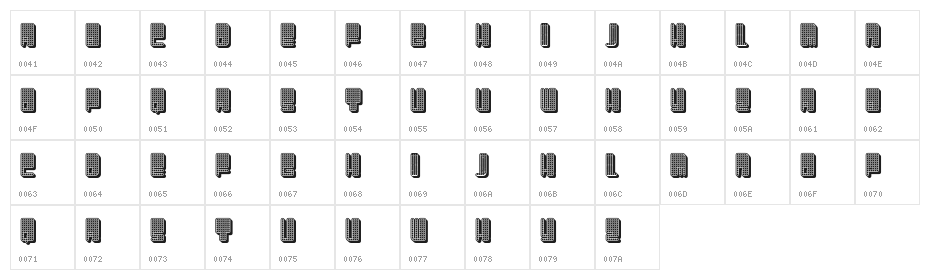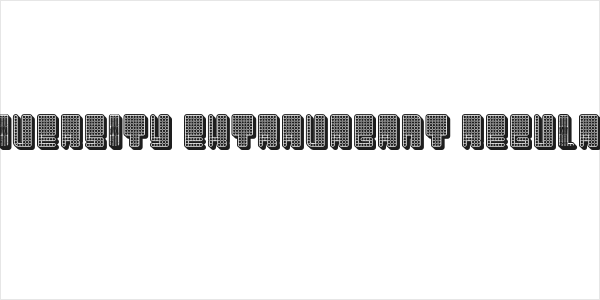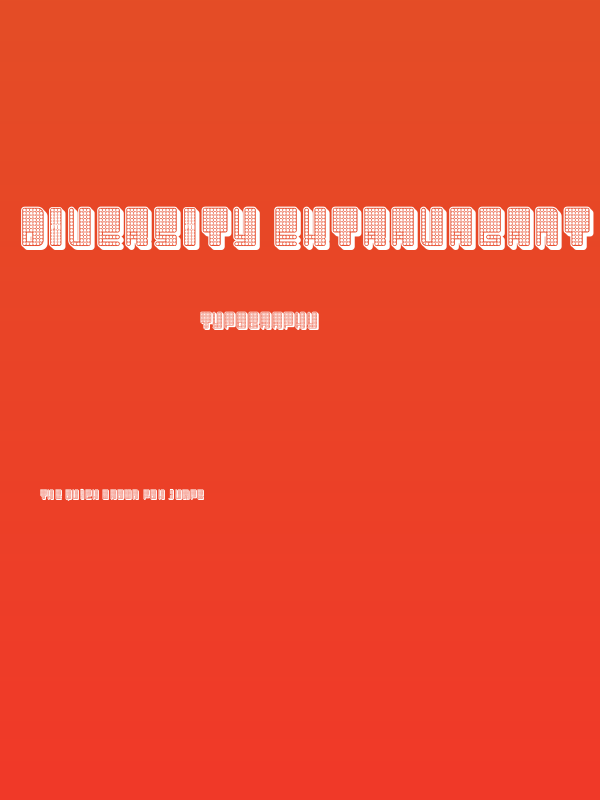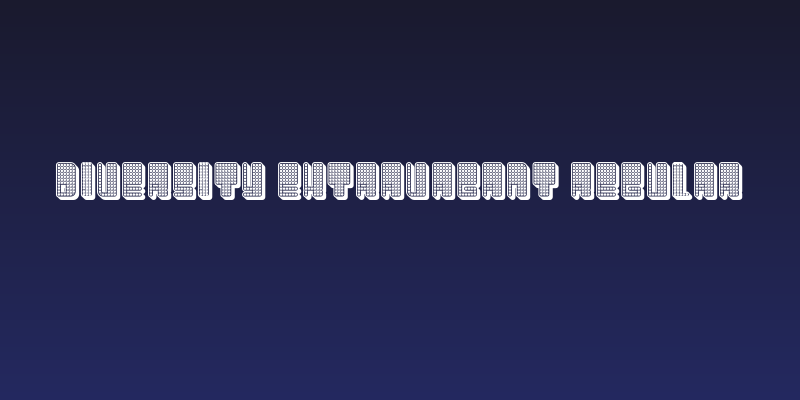
Diversity Extravagant Regular Font
Diversity Extravagant Regular Description
This font features a bold, decorative style with a unique pattern of dots filling each character. The letters are outlined with a thick black border, giving them a strong, impactful appearance. The geometric design adds a modern and playful touch, making it stand out in any design project. The characters are uniformly wide, creating a cohesive and balanced look. The font is highly stylized, making it ideal for creative and artistic applications.
| Proposed Projects | Ideal for posters, album covers, event invitations, and branding projects that require a bold and artistic touch. |